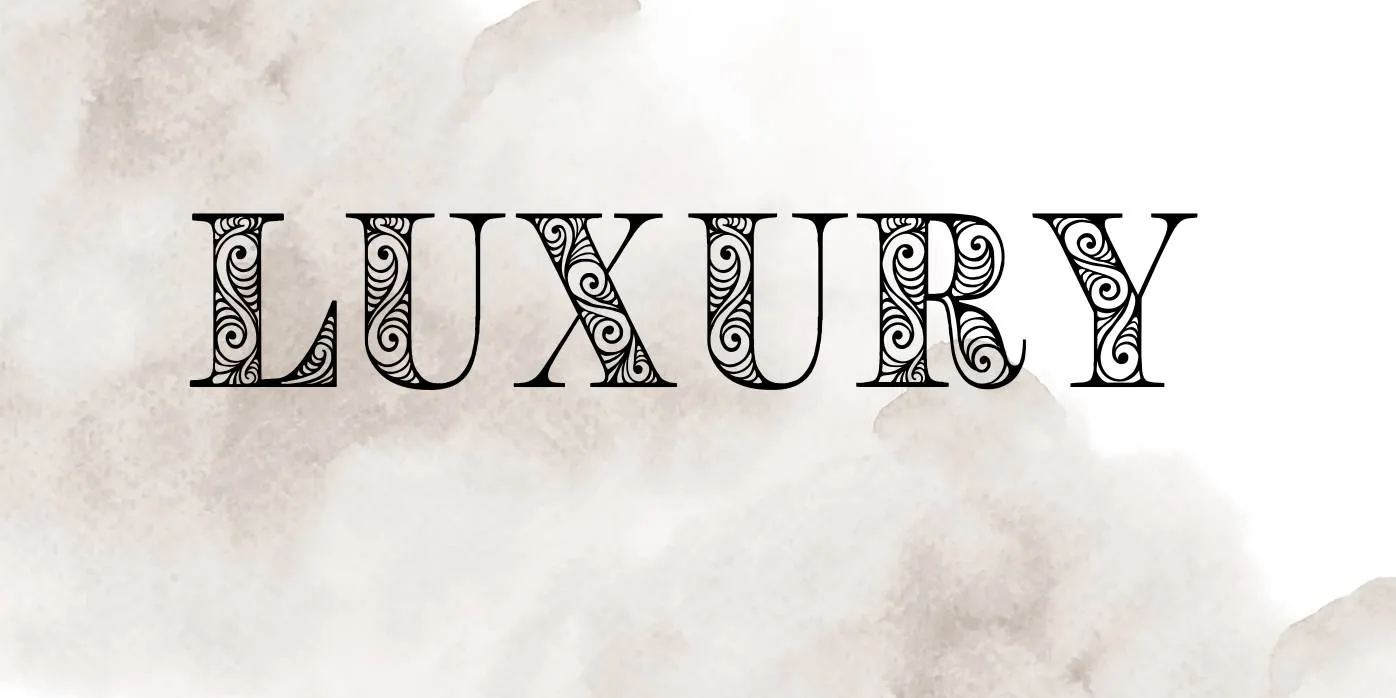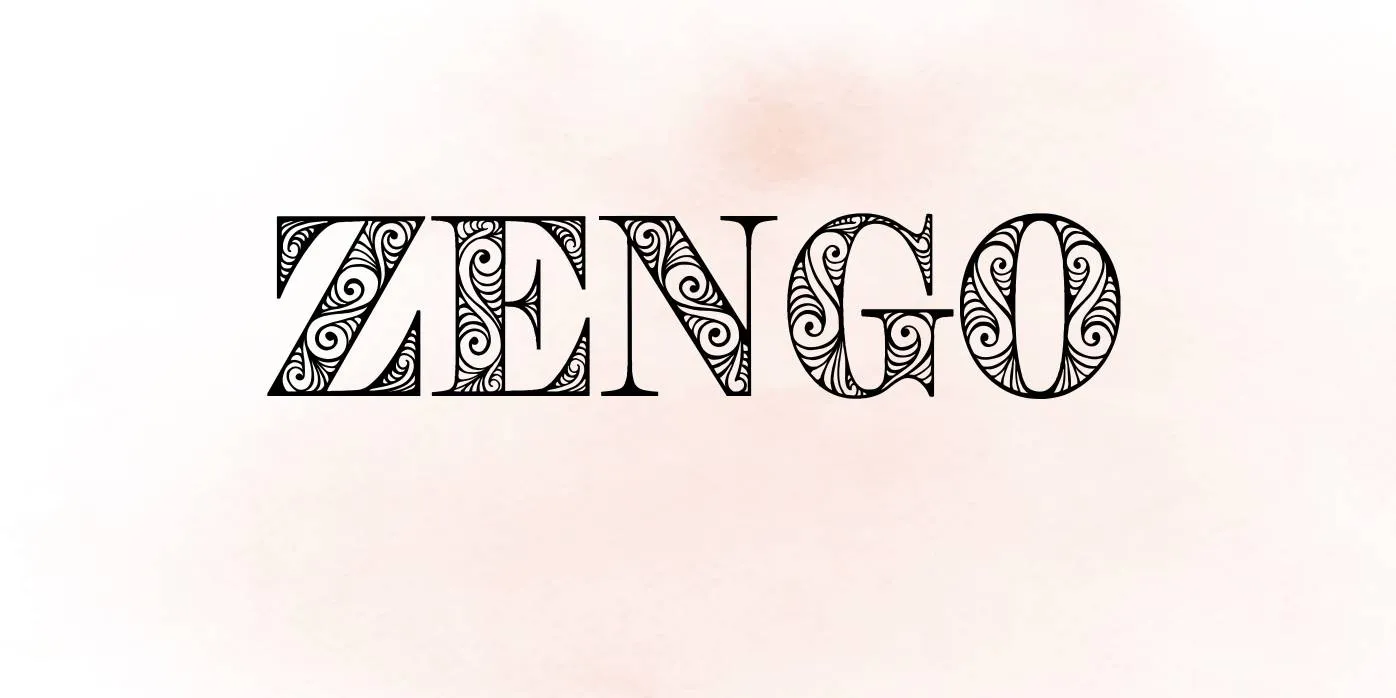
Zengo Font
There are a lot of decorative types of characters that have amazing and stunning looks. But I am going to introduce a unique type of texture. Zengo Font is a decorative type of typeface. Digital Typeface Studio designed this decorative font.
There are a lot of typefaces that are best for pairing with this typeface. Some fonts that are good for pairing with this typeface are the fortune coin font, Looney Tunes font, and a lot more. If you are pairing a typeface then you should keep the similarities and differences in mind. In this way, you will be able to get a better type of texture for pairing with another typeface.